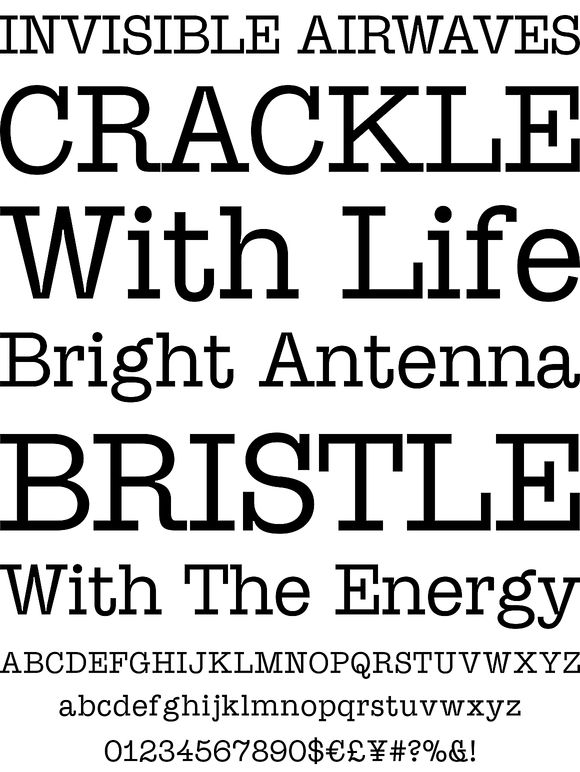
Suomi Slab Serif
Foundry: Suomi Type Foundry
All typewriter types are rounded and especially American Typewriter has an almost too-slick appearance. Suomi Slab Serif has the glyph shapes similar to typewriting, but the serifs, terminals and connections are crisp and sharp.